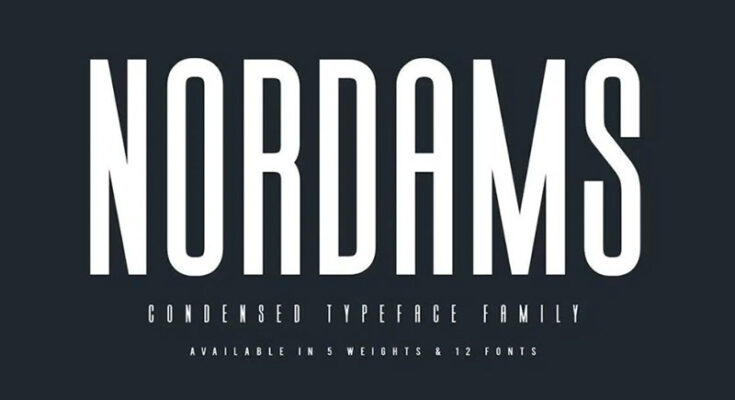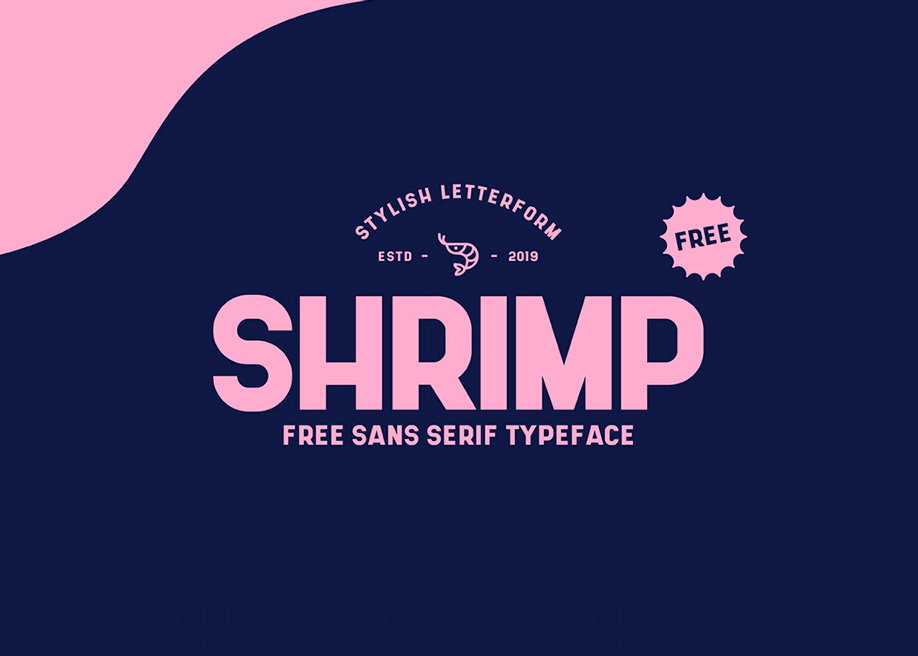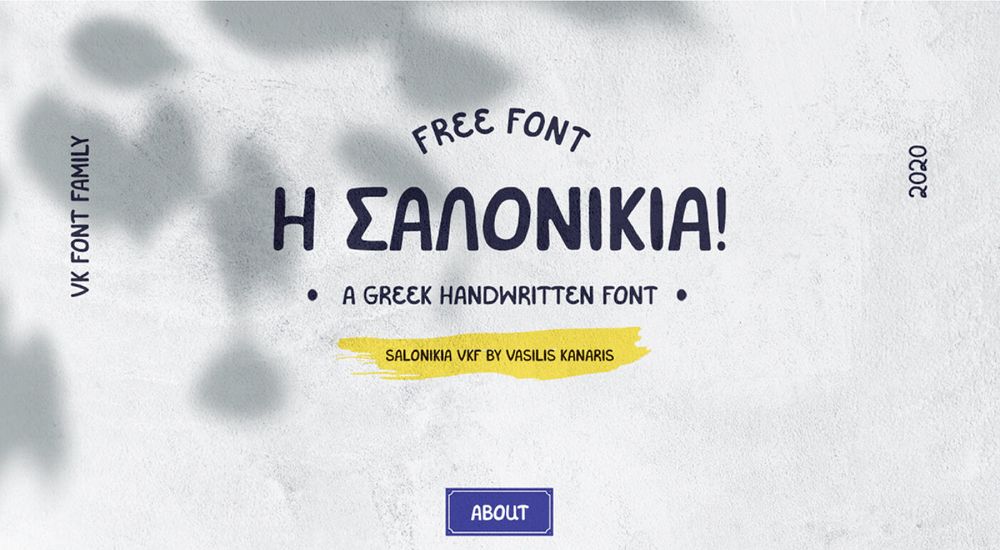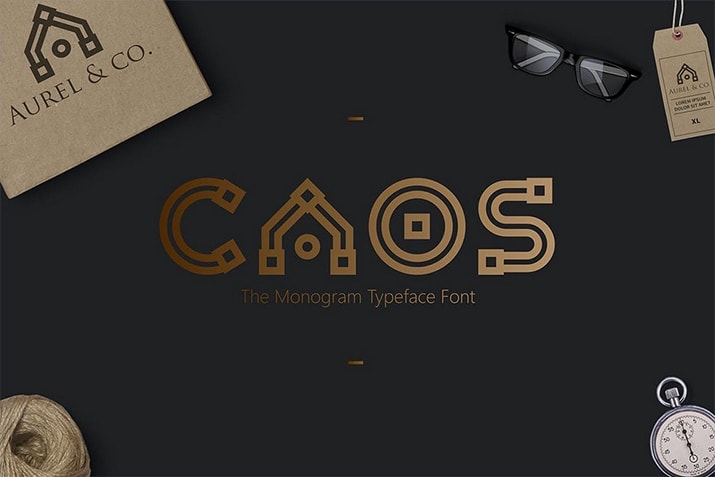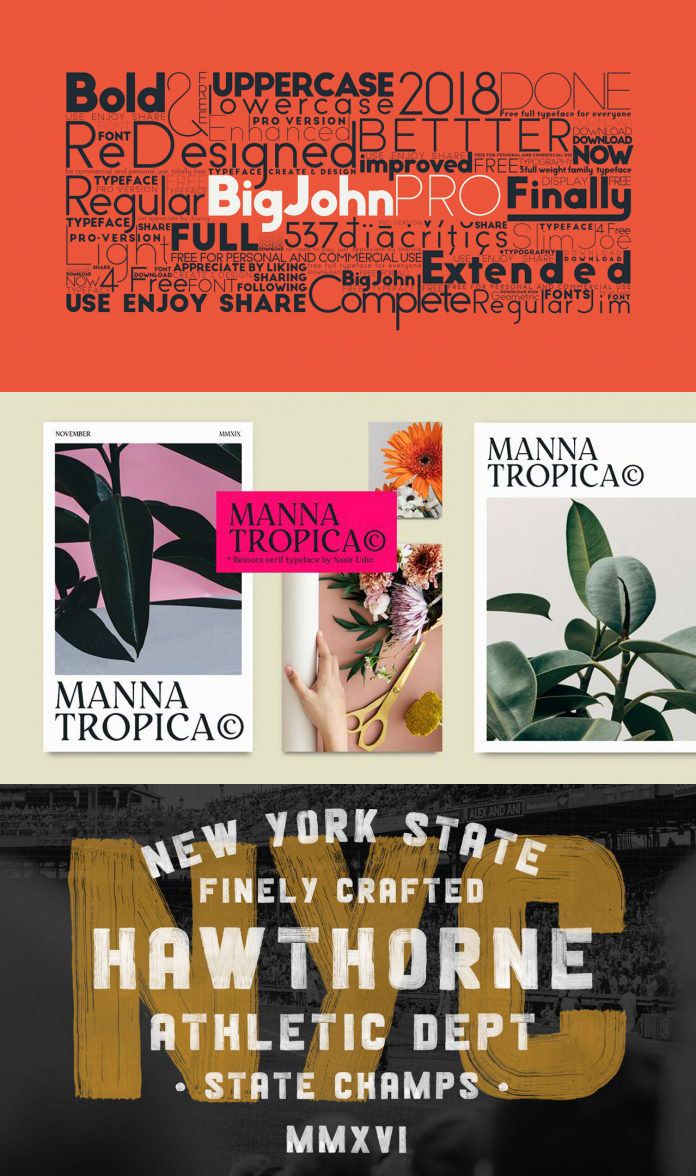
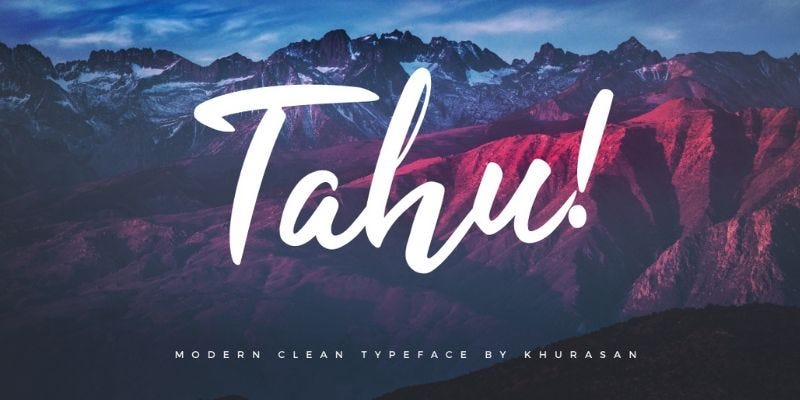
Were amazed at the number and quality of free fonts available today.
Sequel is Free modern font that ideal for movies or logos. The following clean fonts are ideal to make an creative design and perfect for any artwork. Fonts Created in 2020.
Here are some other awesome font collections like the Best Free Fonts Typefaces 2015 and Best Free Fonts Typefaces 2014 including the best free Fonts Typefaces and Font Families we found on the web in the past years. In this list youll find the very best vintage style fonts which you can use for postcards websites mobile. And why does it really matter.
30 Free Fonts You MUST Have. See the timeline overview for more years and a history of free fonts. Take a look at beautiful commercial fonts for professional.
20 Newest Free Minimalist Icon Sets. Download Aliyah Best Free Font 2020 Here Melgatha Monoline Script Font This free font comprises a creative monoline design with slender and free-flowing characters. Designers have an incredible choice of free fonts to choose from.
Fonts download 100 free available for graphic designers. Font by Philip Trautmann. It is clean modern and bold font for 100 free commercial use.
15 Free Social Media Icons Sets 2020 20 Newest Free Website Templates on Wix. Mellgatha features lots of alternate characters as well as multilingual support. There is a collection of script fonts handwritten fonts brush fonts and bold fonts which can make your heading and headlines great look.
So whether youre looking for a serif script or sans-serif font todays collection of the best free fonts for designers has you cov. Find More Free Fonts At. Sequel Free Modern Font.
20 Best Vintage Style Fonts Download In 2020. We also think youll like this selection of google fonts most loved by our users. Helvetica is a widely-used sans-serif typeface family designed by Max Miedinger.
When youre faced with the minefield of choosing the right font when there are just so many to choose from how do you choose. Oks typeface was initially based on letterforms popular in the USSR in 60s but in the course of time quite distanced from them. If you are planning to work on some vintage-inspired project you need proper fonts for that.
These fonts were all created in 2020.